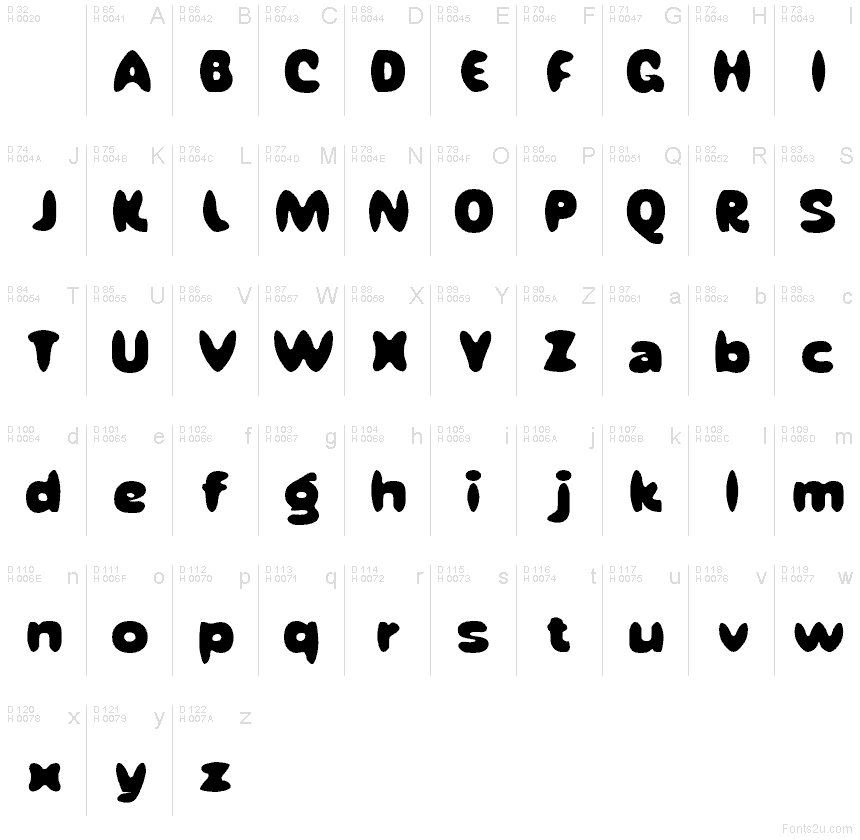
CSRifageDrawn-Regular Demo
CS Rifage Drawn font by Craft Supply Co. is a free cartoon display font built around blobby, ink-splash letters that swell and wobble like wet paint. Chunky strokes, pillowy curves, and slightly uneven rhythm give it a friendly, hand-drawn bounce while staying legible at large sizes. Part of the CS Rifage family, it brings an exuberant, squishy texture that grabs attention without shouting.
Using CS Rifage Drawn, headlines feel playful and tactile—great for kids’ branding, candy or snack packaging, event posters, game titles, stickers, and YouTube thumbnails. This free font shines when set big with roomy spacing to let those inky edges breathe. Pair with a clean geometric sans for body copy to keep the message crisp beside the fun.